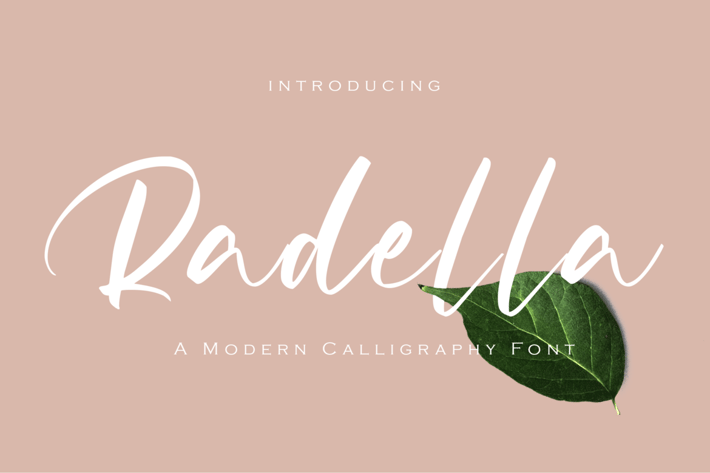
Calligraphy Font
If you want to spark positive emotions in your reader, a beautiful calligraphy font is THE way to go. It’s even better if the font is sleek and modern.
Introducing Radella - A Modern Calligraphy Font.
Elegant and sophisticated, this font will stand out both in print and on the web. It’s excellent for invitations, promotions, cards, banners, social media, and any other project in need of style.
Multilingual & Ligature Support
Full sets of Punctuation and Numerals